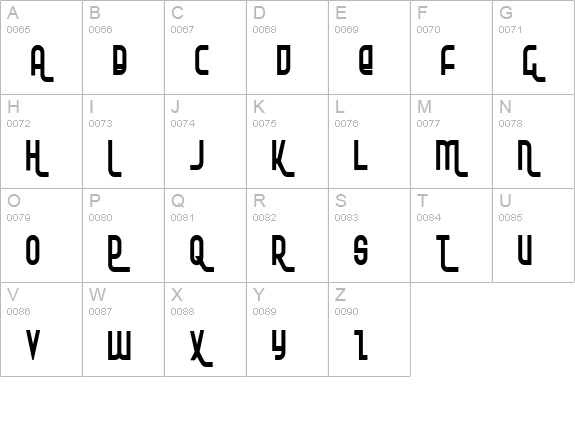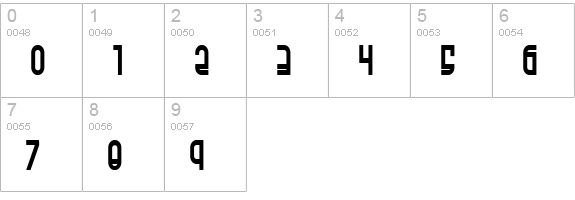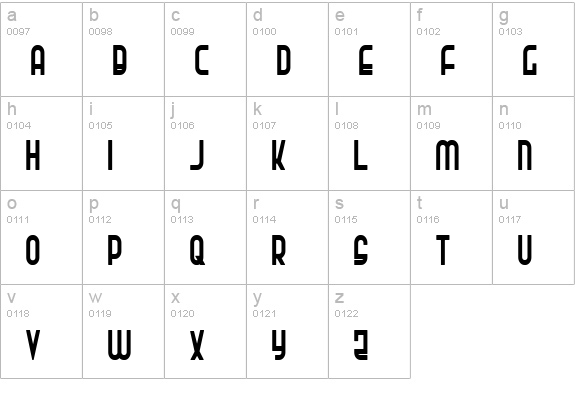
Ro'Ki'Kier Condensed Font Details
Ro'Ki'Kier Condensed font is a modern and stylish typeface that exudes sophistication and elegance. With its sleek lines and contemporary design, this font is perfect for creating eye-catching designs that demand attention. The condensed style of the font makes it ideal for fitting more text into limited spaces without sacrificing readability. What sets Ro'Ki'Kier Condensed font apart is not only its stunning aesthetics but also the fact that it is available for free download at FontsMarket.com. This means that you can easily access this high-quality font without any cost, making it a valuable addition to your font collection. Whether you're working on a branding project, advertising campaign, or any other design need, Ro'Ki'Kier Condensed font will elevate your creations to the next level. Download it today and unleash your creativity with this exceptional typeface.